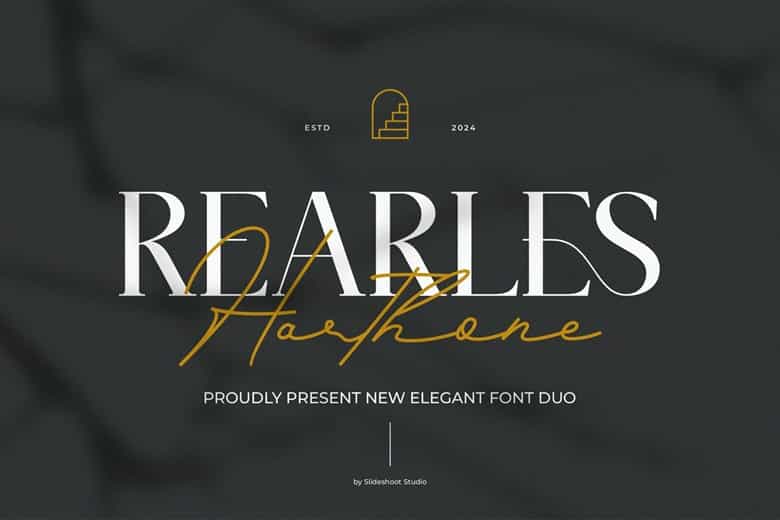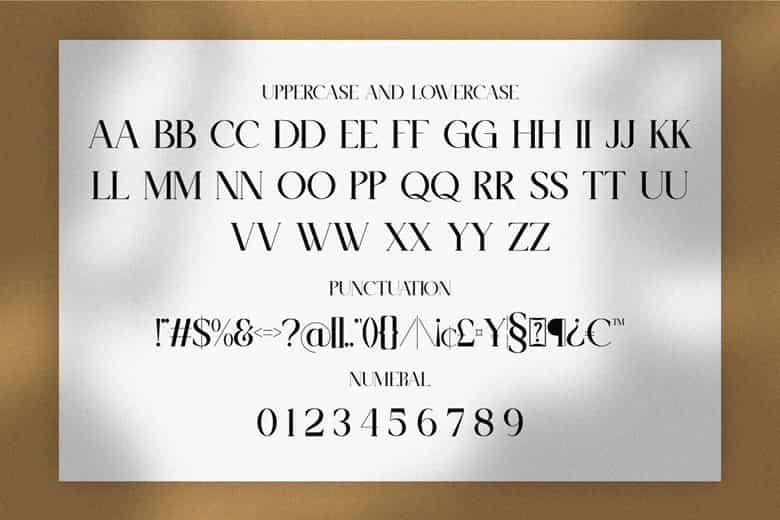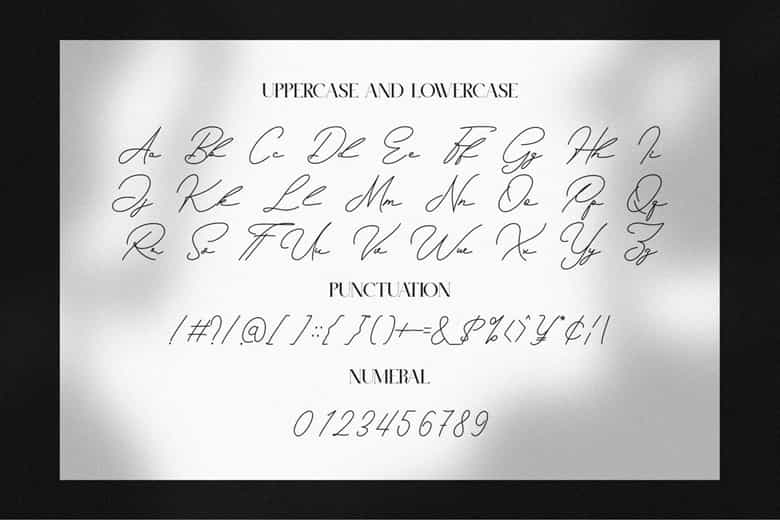
Rearles Harthone is a new elegant duo font which has both modern serifs and scripts to use in your projects. May be applied to titles, logos, brands, magazines, product packaging and invitations. Its sophisticated, trendy, classic, sophisticated, and contemporary feel with the sleek and curve design adds that finishing touched to any project. Now, this font is the perfect match for any of your projects.